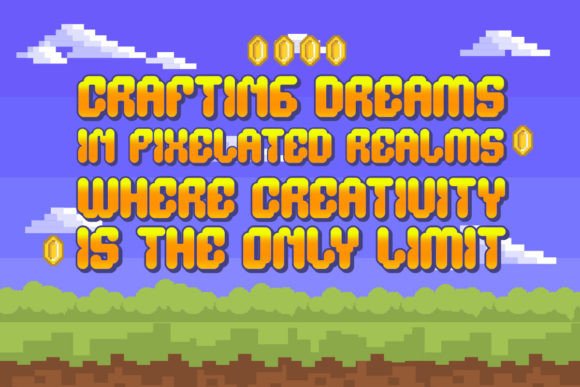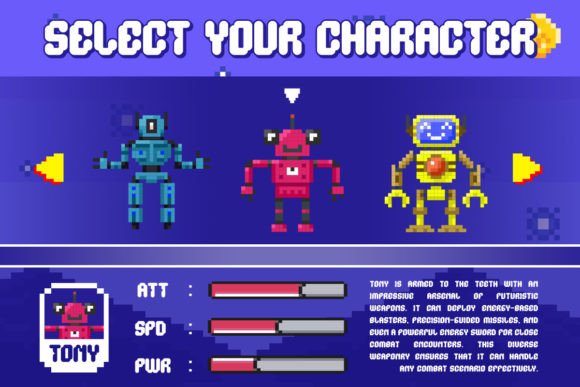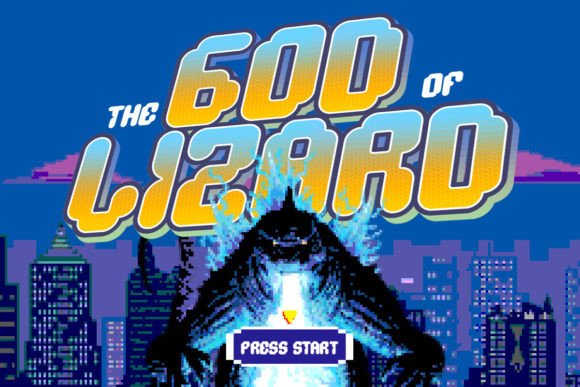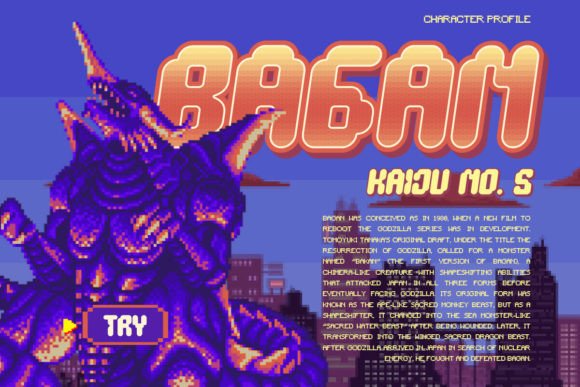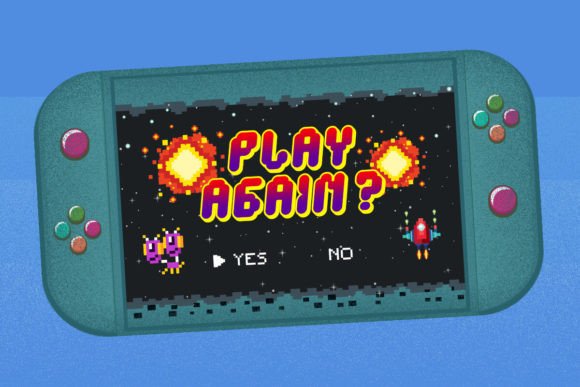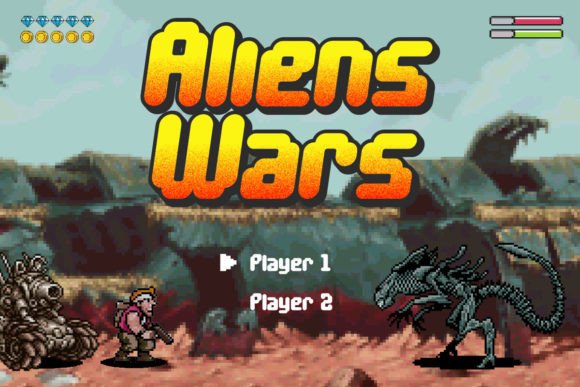
Introduction to Nano Pix Font Font
Fonts play a crucial role in design, and the Nano Pix Font font is a typeface that brings both character and versatility to any project. Whether you’re working on a branding project, a website, or a print design, the Nano Pix Font font offers a unique style that can elevate your work.
Get ready to level up with the amazing NANO PIX font.
🎮 Embrace the nostalgic charm of pixelated games with its versatile 6 Styles: Regular, Italic, Outline, Extrude, Outline Italic, and Extrude Italic Unleash your creativity in the world of pixel art, as this font brings a touch of retro gaming magic to your designs.
Key Features of Nano Pix Font Font
Why Choose Nano Pix Font Font?
The Nano Pix Font font is more than just a typeface – it’s a design tool that helps you communicate your message with style and clarity. Its unique character set and versatile design make it suitable for a wide range of applications, from elegant invitations to bold headlines.
With its carefully crafted letterforms and balanced proportions, the Nano Pix Font font ensures readability and visual appeal across all mediums.
What makes Nano Pix Font font special?
The Nano Pix Font font stands out with its unique design, exceptional readability, and versatility across various design applications.